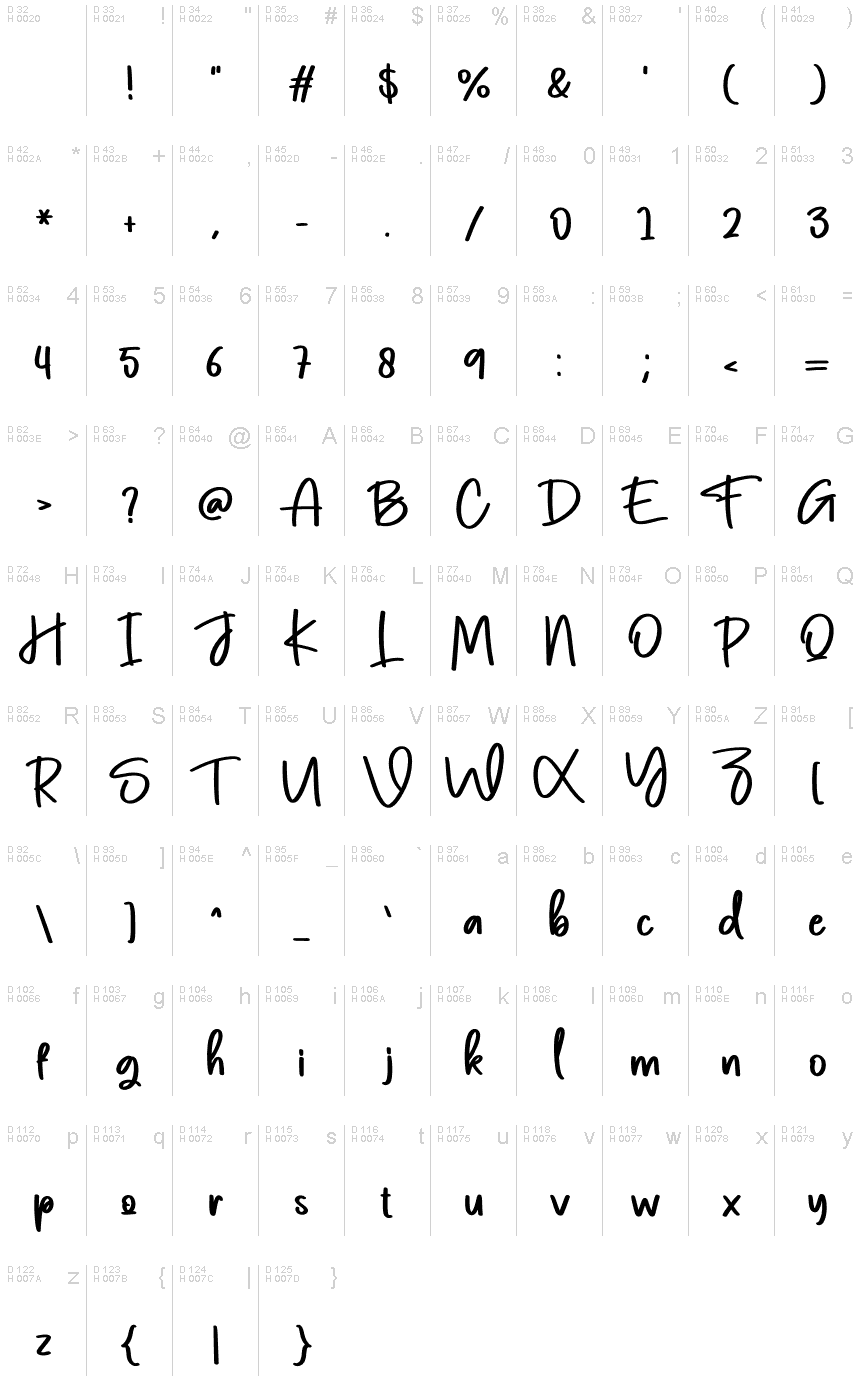
Embrio
Embrio, a captivating handwritten font created by Scratchones, invites you to add a touch of elegance and authenticity to your projects. With its semi-light weight, Embrio effortlessly blends sophistication and playfulness, making it ideal for various creative endeavors.
This font type is perfect for fashion lookbooks, wedding invitations that exude romance, branding materials seeking a whimsical charm, or even heartfelt greeting cards. Embrio's distinct handwriting style brings a personal touch to any design while maintaining an air of grace and refinement.